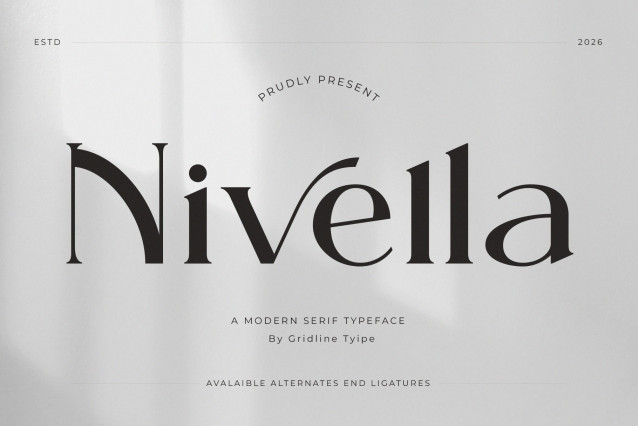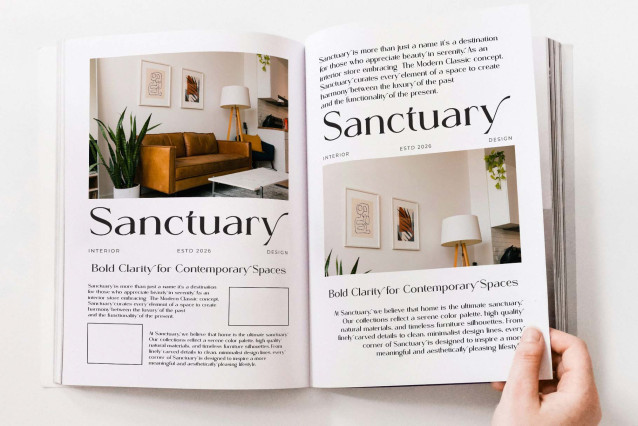
Nivella Font
Introducing **Nivella Font** the elegant, beautiful, and modern Serif. With its modern and minimalist look, Nivella brings a luxurious, classy, ​​and clean style to your projects such as websites, modern logos, brand identities, social media quotes, wedding stationery, magazines, and more!
Nivella features unique and classy capital letters A to Z and also comes with unique alternates making Nivella a beautiful font that can be customized for various projects and jobs you want.
Nivella is perfect for: logos, brands, wedding invitations, business cards, greeting cards, posters, magazines, social media, agenda prints, and websites.
FEATURE:
* Uppercase and lowercase letters
* Multilingual Characters
* Numbers & punctuation
* Alternative styles and ligatures (on some fonts)